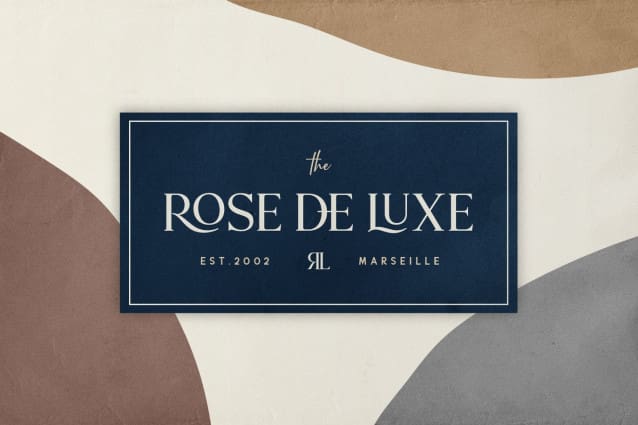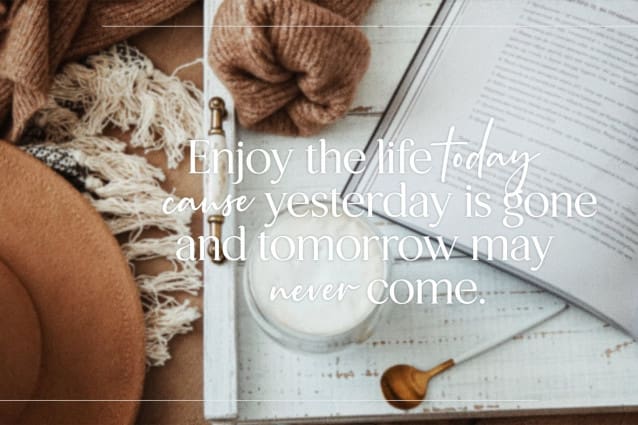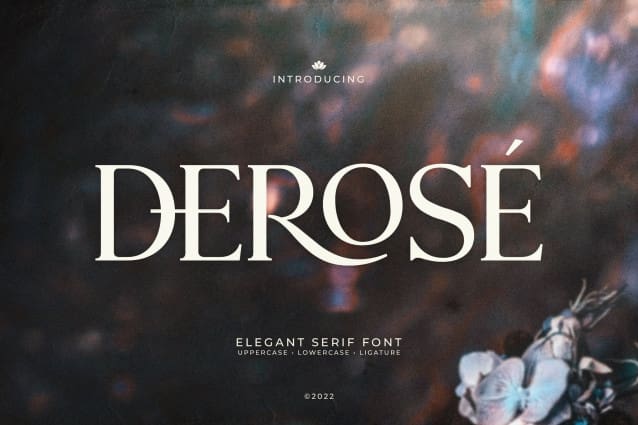
DeRose Font
Derose Font is an elegant serif font. This font has a modern, curvy and luxurious look. Give your design an exclusive and aesthetic look.